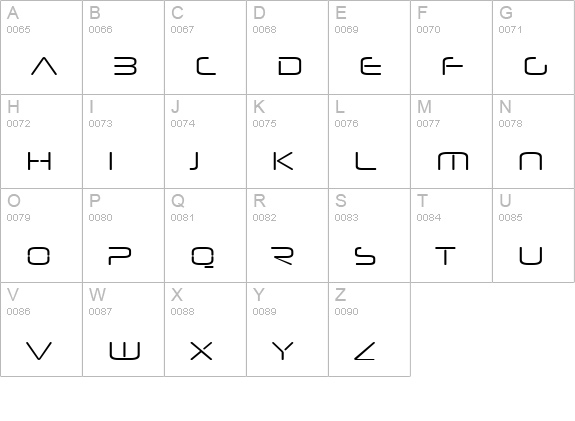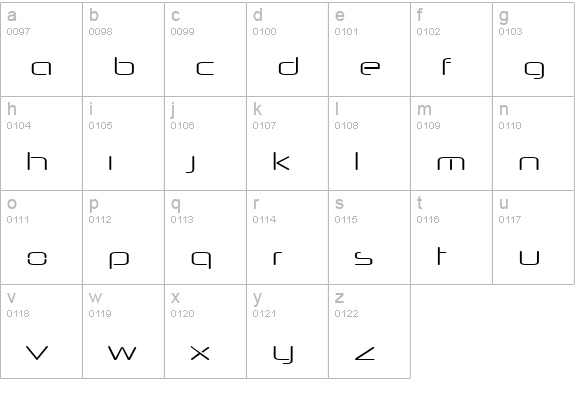
Neuropol Nova Xp Lt Font Details
Neuropol Nova Xp Lt font is a futuristic and sleek typeface that exudes a sense of modernity and technological advancement. With its sharp edges and minimalist design, this font is perfect for projects that require a clean and futuristic look. The geometric shapes and bold lines of Neuropol Nova Xp Lt make it stand out and grab attention. What's even better is that this font is available for free download at FontsMarket.com! Whether you're working on a sci-fi-themed project, a tech startup's branding, or a sleek website design, Neuropol Nova Xp Lt is the ideal choice to give your work a cutting-edge and innovative feel. Download this font today and take your designs to the next level with its bold and contemporary style.